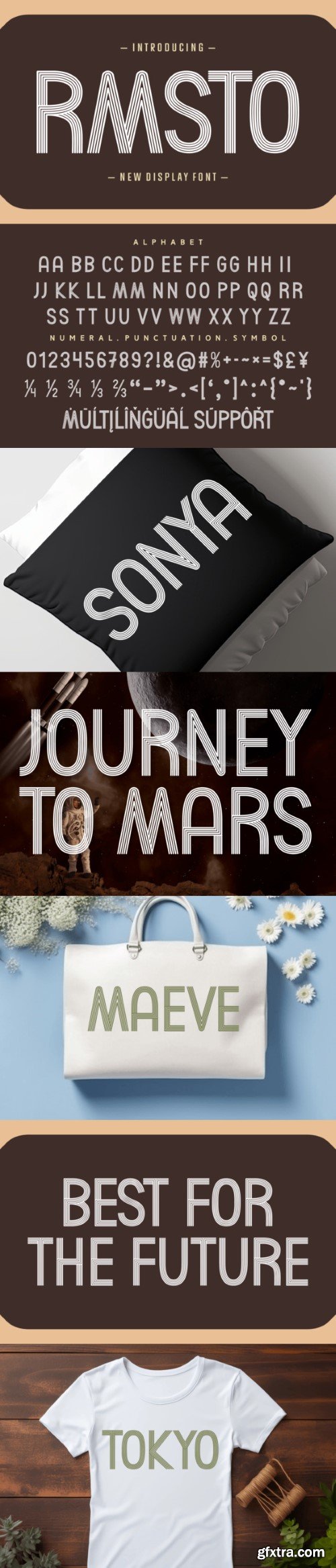
Rmsto is a striking display font that stands out with its bold, separate lines. Each character is crafted from distinct, confident strokes, creating a strong and impactful visual impression. Ideal for making a statement in headlines, titles, or any design where boldness is key. Rmsto’s unique construction adds a modern and dynamic flair to your text, making it a standout choice for projects that demand a bold and contemporary look.